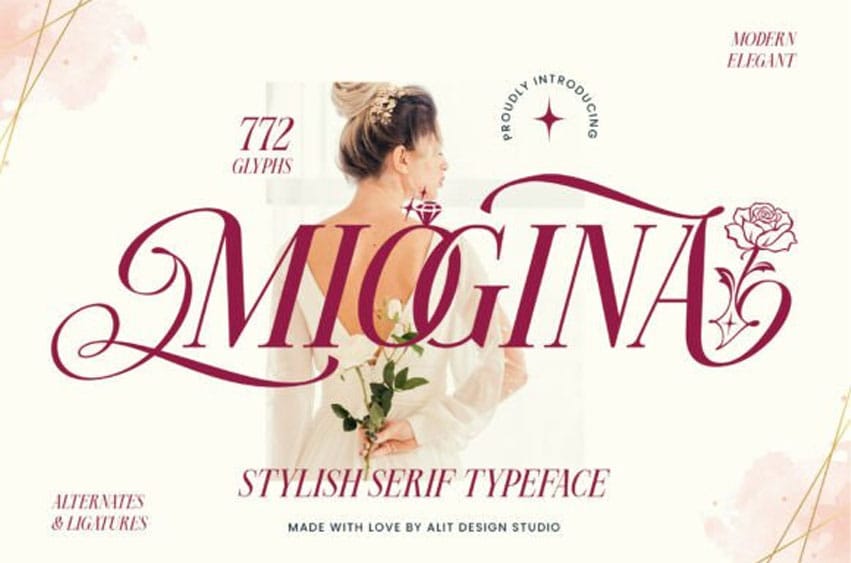
Miogina Font Typeface: The Quintessence of Modern Serif Elegance with Swash Artistry. Prepare to redefine your design aesthetic with Miogina Typeface, an exquisitely crafted modern serif font that masterfully intertwines contemporary sophistication with the flowing grace of elegant swashes. Designed with meticulous attention to detail by Alit Design Studio, Miogina is not merely a typeface; it’s a versatile artistic tool poised to infuse your projects with an unparalleled sense of luxury, romance, and timeless beauty.
Dive Deeper into Miogina’s Distinctive Features:
- A Harmonious Fusion of Styles: Miogina stands out by seamlessly blending the clean, legible lines of a modern serif with the ornate, calligraphic flourishes of script-inspired swashes. This unique combination offers the best of both worlds: professional readability enhanced by an artistic, personalized touch. Perfect for conveying a message that is both authoritative and enchanting.
- Rich & Romantic Ornamental Glyphs: Elevate your typography beyond mere letters. Miogina is thoughtfully adorned with a stunning array of integrated ornamental glyphs that include:
- Delicate Roses: Symbolizing beauty and love, perfect for adding a romantic or high-fashion touch.
- Sparkling Diamonds: Representing luxury, exclusivity, and prestige, ideal for premium branding.
- Charming Hearts: Connoting warmth, affection, and passion, suitable for personal or celebratory designs. These integrated ornaments are designed to flow seamlessly with the letterforms, creating cohesive and visually captivating compositions.
Miogina truly shines with its dedicated stylistic sets, offering incredible typographic versatility:
- Luxury Branding & Logos: Create iconic and memorable brand identities for fashion houses, jewelry brands, upscale salons, and premium products.
- Wedding & Event Invitations: Craft exquisite and personal invitations that set a tone of elegance and celebration.
- Editorial Design: Enhance magazine layouts, book covers, and editorial content with a touch of sophisticated flair.
- Packaging Design: Make products stand out on shelves with premium, eye-catching labels and packaging.
- Poster & Advertisement Design: Design captivating visuals that demand attention and convey a message of quality and distinction.
- Social Media & Digital Content: Create stunning graphics that reflect a high-end aesthetic across all digital platforms.
Miogina Typeface is more than just a font; it’s an investment in your design arsenal, empowering you to create visuals that resonate with grace, speak volumes of luxury, and leave a lasting impression. Elevate your creative projects and infuse them with the enchanting allure of Miogina.